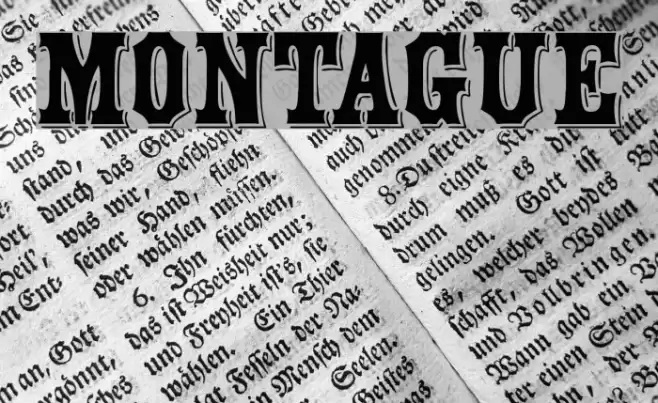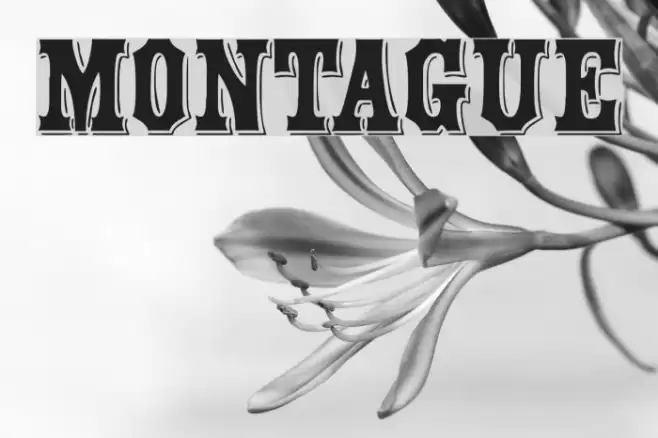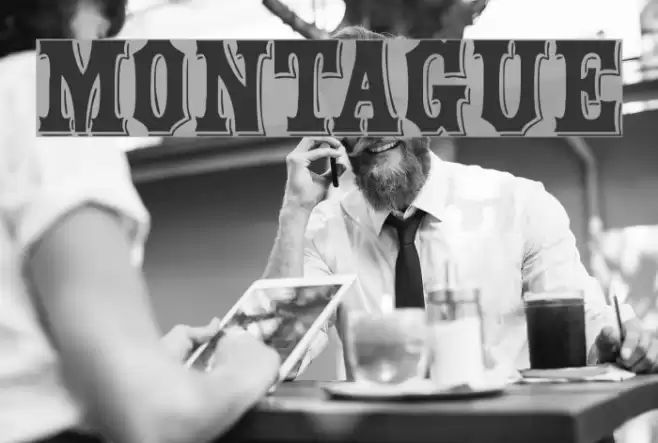
Montague Font
Montague Description
This font features a bold and decorative style with a strong presence. The characters are designed with a shadow effect, giving them a three-dimensional appearance. The serifs are pronounced and angular, adding to the font's dramatic and eye-catching look. The uppercase letters are particularly striking, with a consistent width and height that ensures readability while maintaining a unique flair. The numbers and special characters follow the same design principles, making them cohesive with the alphabet. This font is ideal for projects that require a bold statement, such as posters, headlines, or branding materials.
A bold, decorative font with a shadow effect and pronounced serifs.
- Proposed Projects: Ideal for posters, headlines, branding materials, and any project needing a bold statement.